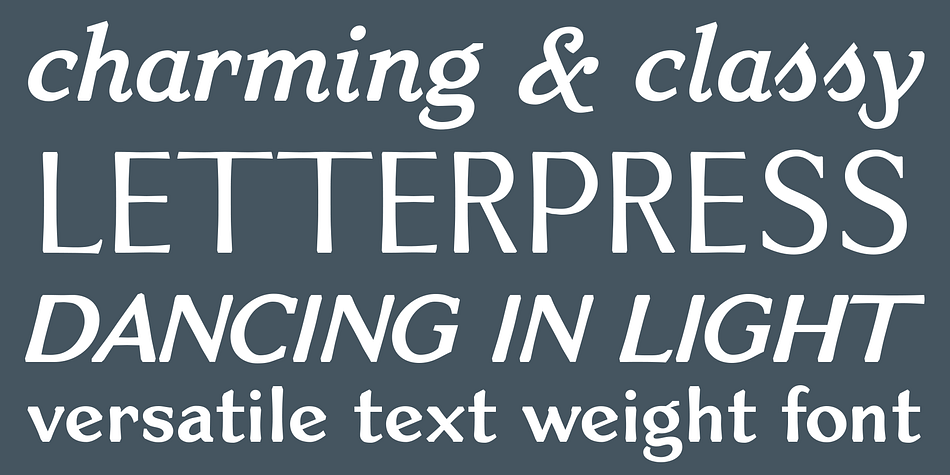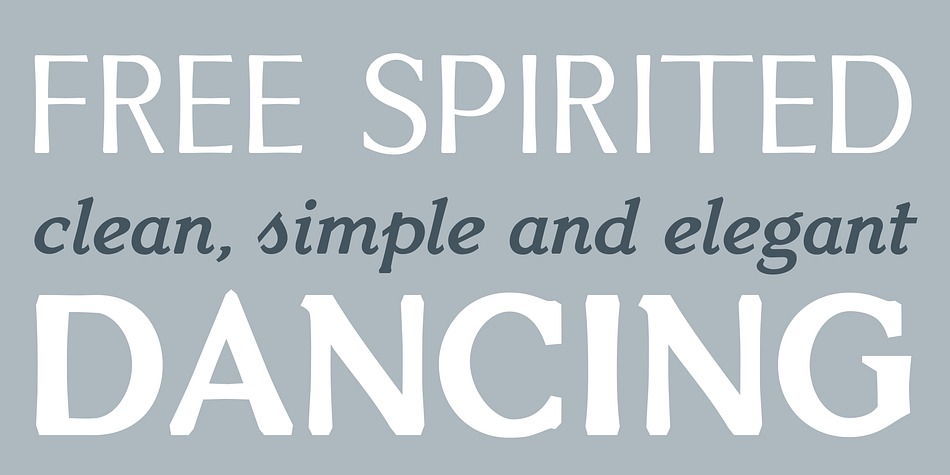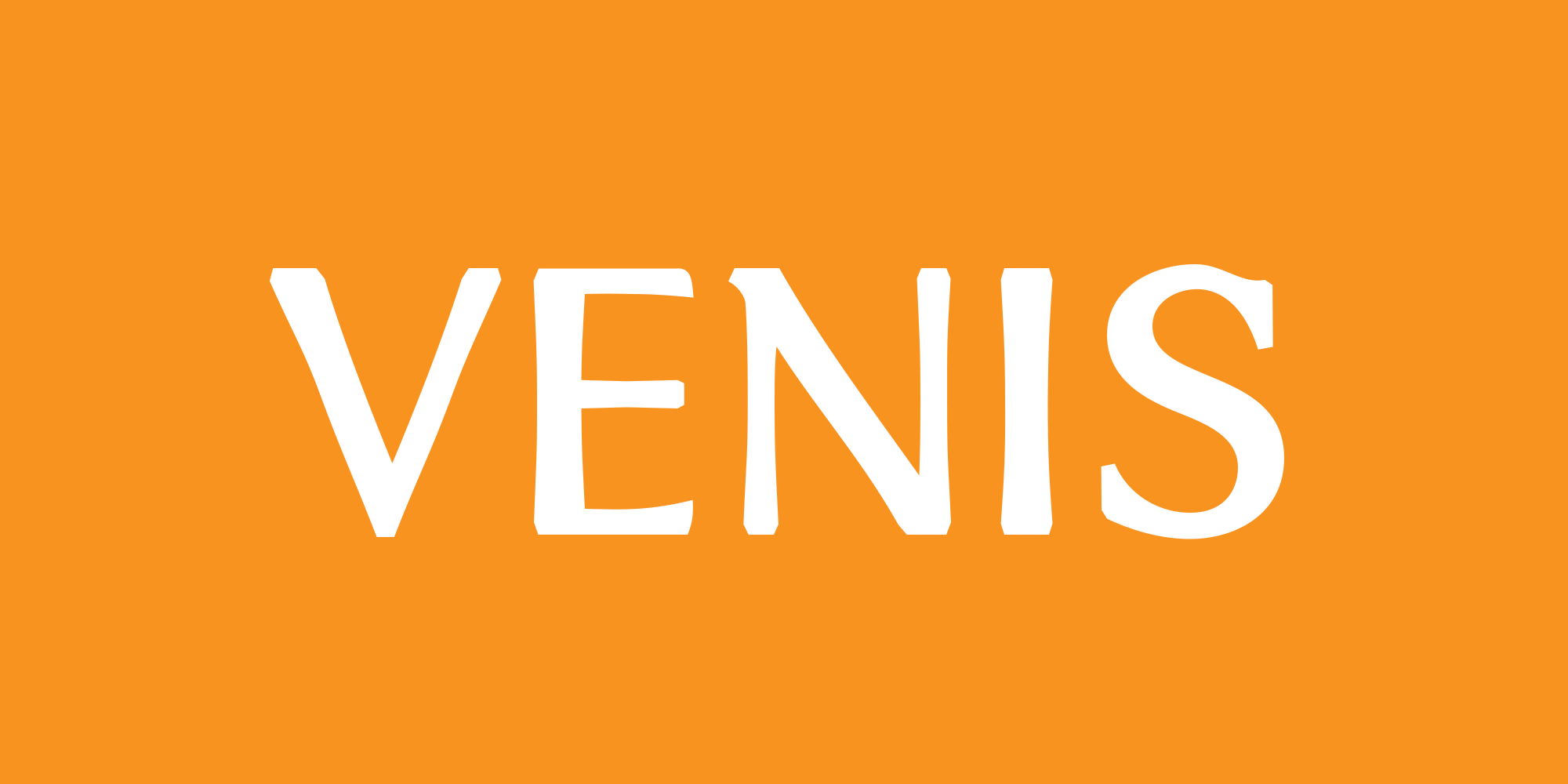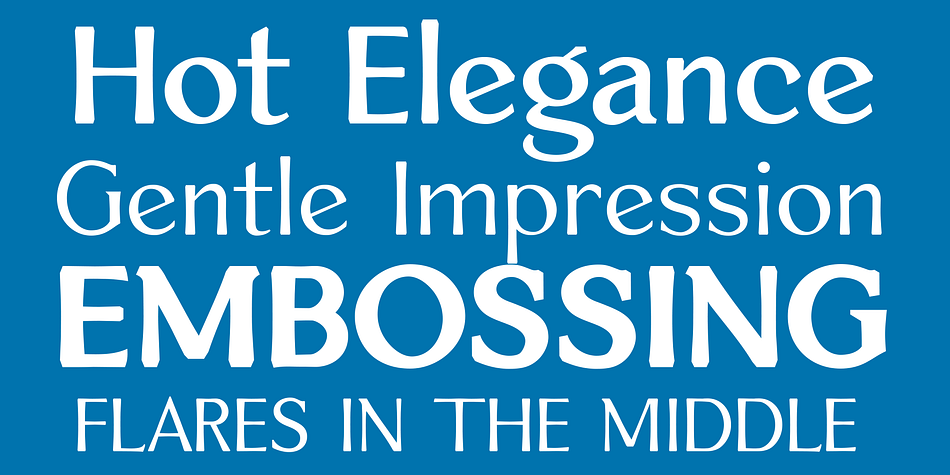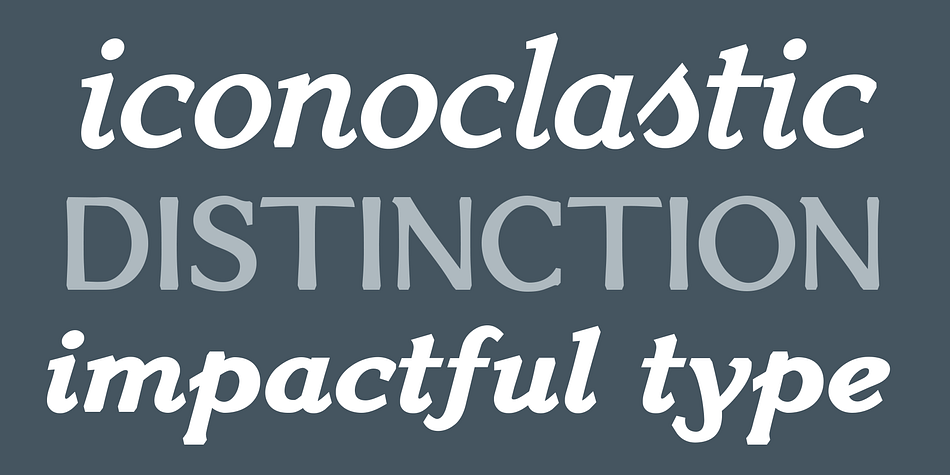
Venis
Designed by Chank Diesel, Venis is a sans serif font family. This typeface has ten styles and was published by Chank Fonts.
Venis is a classic looking font with a whole bunch of modern mystique mixed in. The smiley slanted e, wiggly tail on the g and innovative and dramatic y are but three of the unique and flashy glyphs featured in this typestyle, while the overall vibe is still professional and smart. Intended for use in letterpress printing or other vintage techniques, this font can come across as a bit overly vibrant on screen; it is best finished off the another medium, where embossing shadows or dot gains can add the final pieces to make this font come together. Use it on-screen at your own risk, or delight to see it letterpressed on invitations, business card, announcements or personal stationery. The Italics have a whole bunch of jazzy flairs added to differentiate it from a simple slanted oblique. Five weight style from Light to ExtraBold add plenty of versatility and range. It’s an idiosynsratic face, just looking for the perfect platform to share its understated elegance.